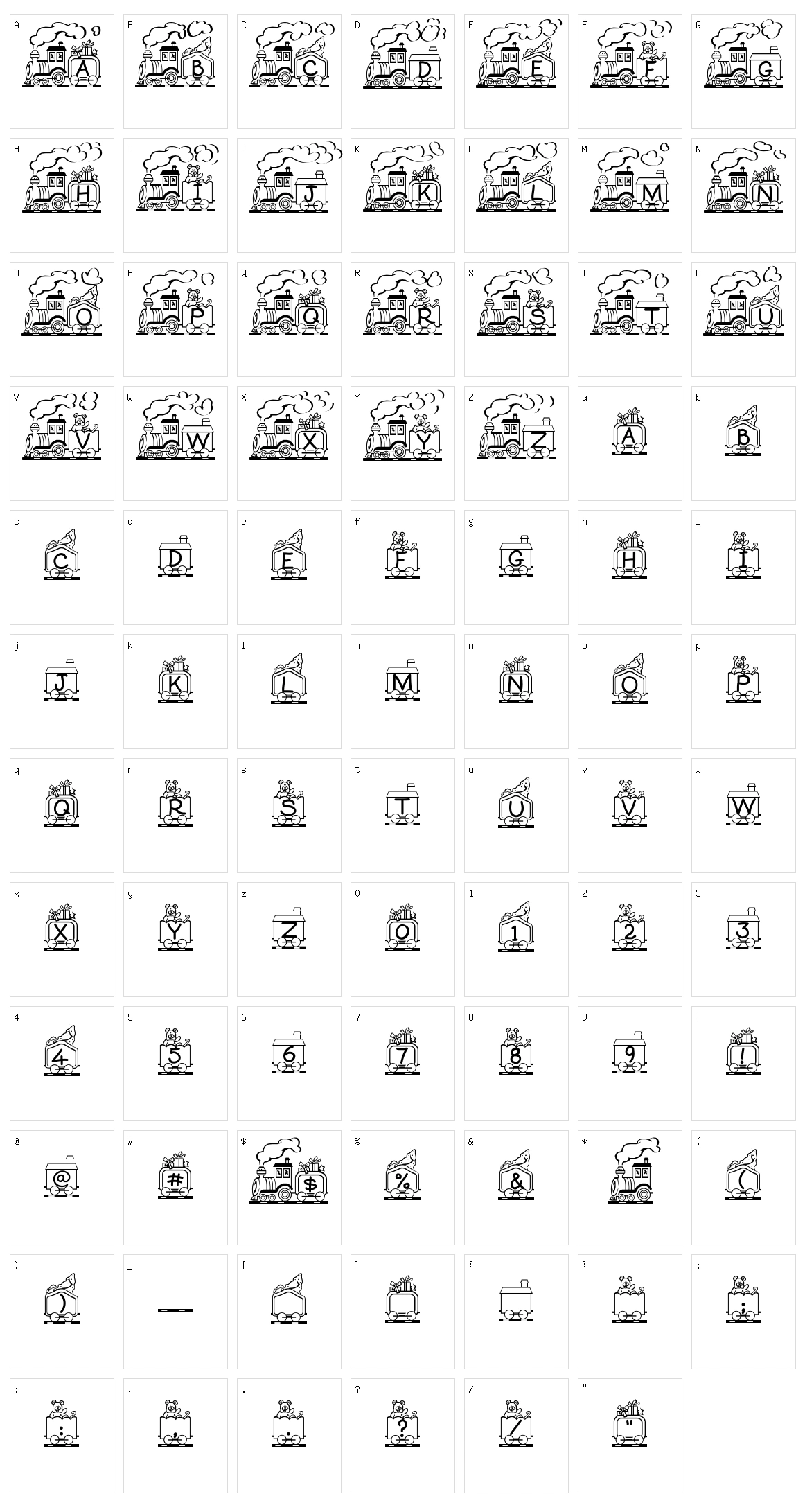
Toy train instructions
Always use a capital letter to get an engine
asterisk * has engine without letter
space has buffer
underscore _ has plain track, no buffer
brackets have wagons without letters { and } plus [ and ]